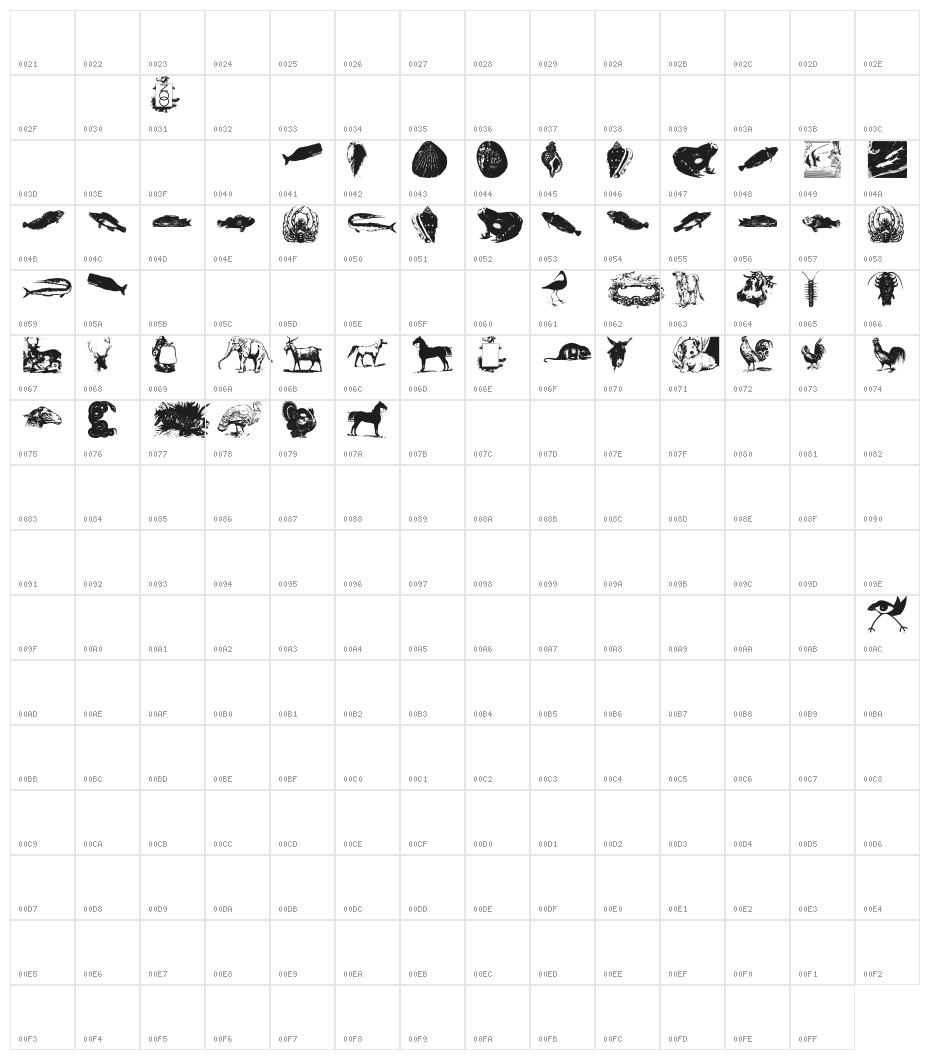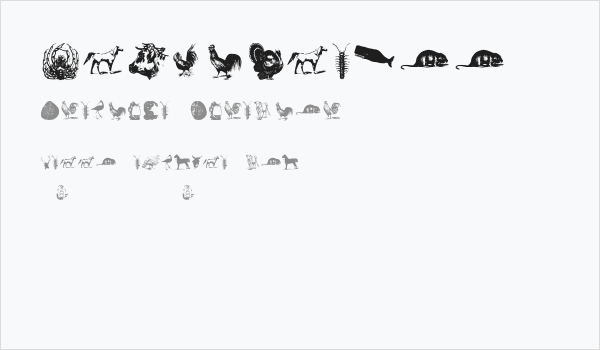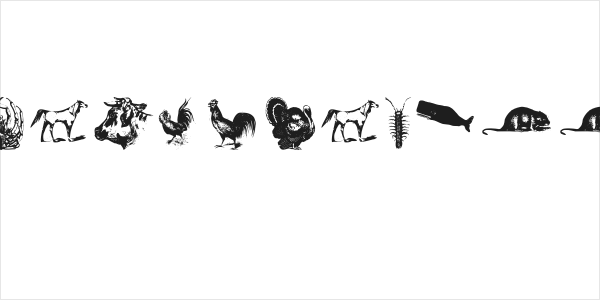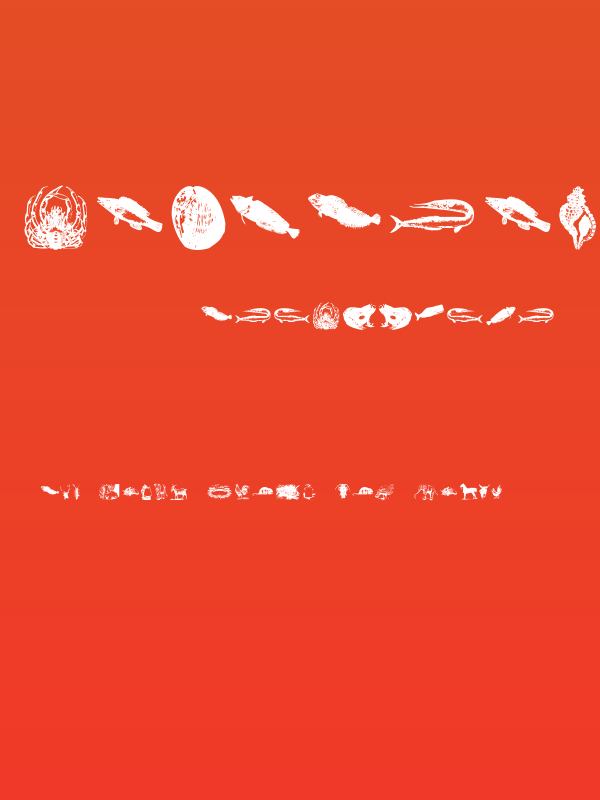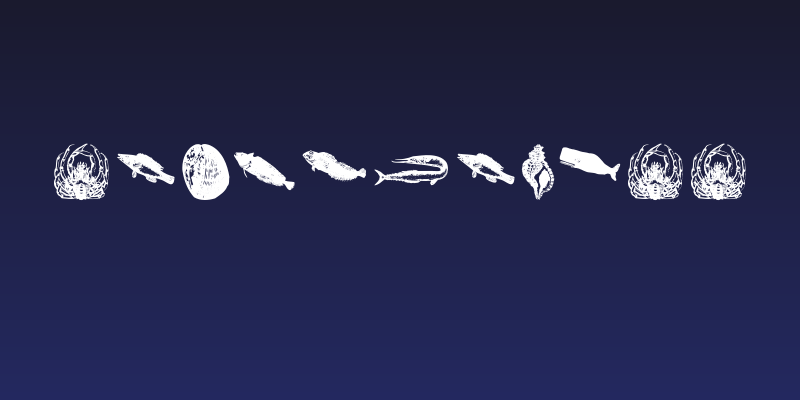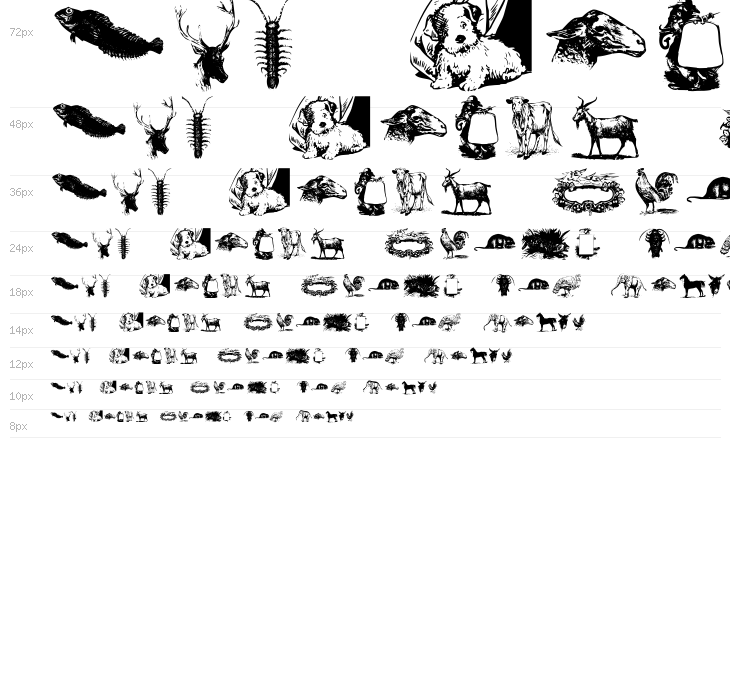
OldstyleZoo Font
OldstyleZoo Description
A decorative display font featuring detailed black-and-white illustrations of various animals and sea creatures in place of standard alphanumeric characters and symbols. Each glyph is a unique, intricate drawing, making the font highly illustrative and thematic.
| Overall Style | Decorative, Vintage, Illustrative |
| Use Case | Logos, Decorative elements, Themed headlines, Educational materials |
| Proposed Projects | ChildrenΓ’β¬β’s books, educational posters, nature-themed invitations, creative branding, decorative headings. |